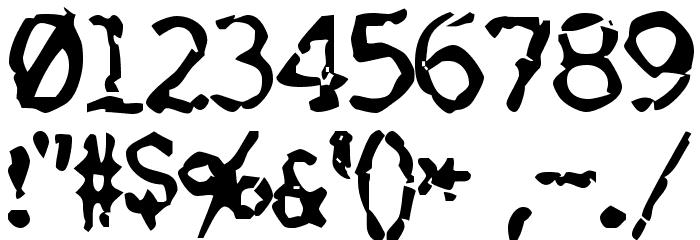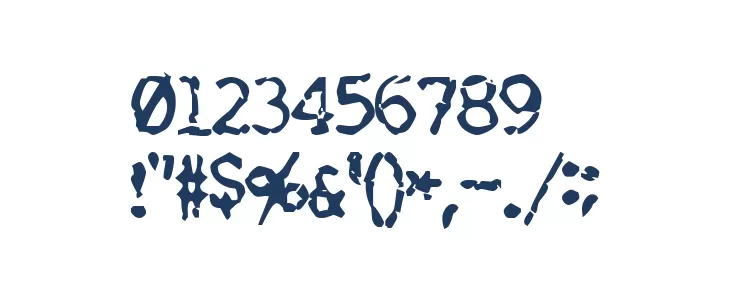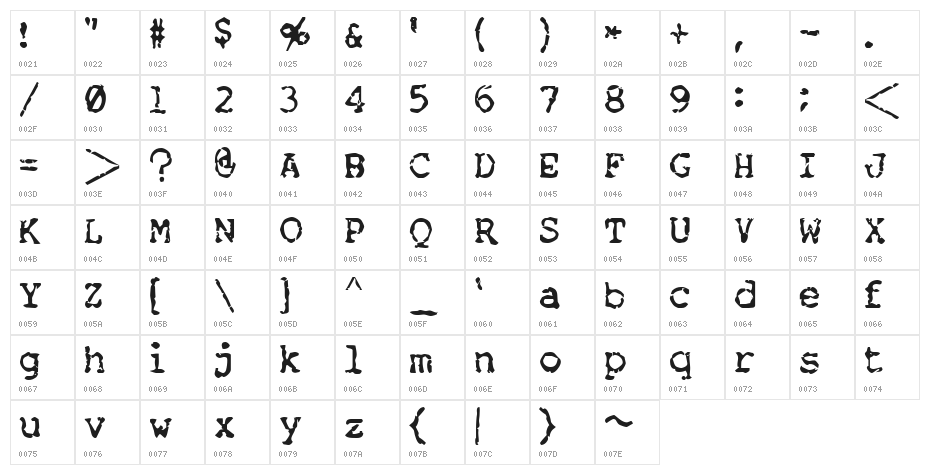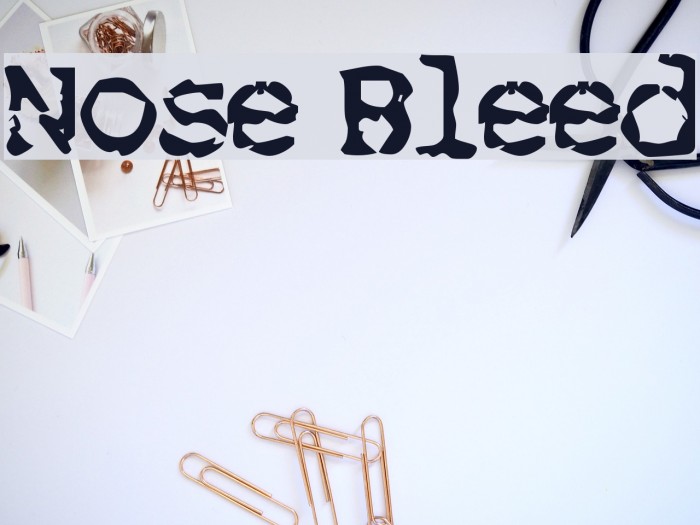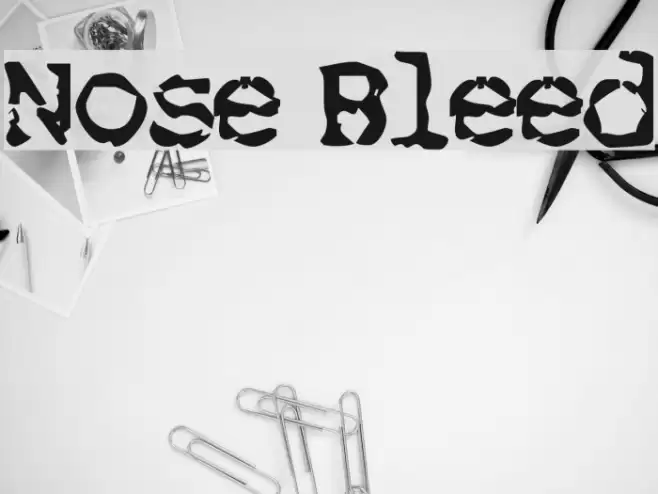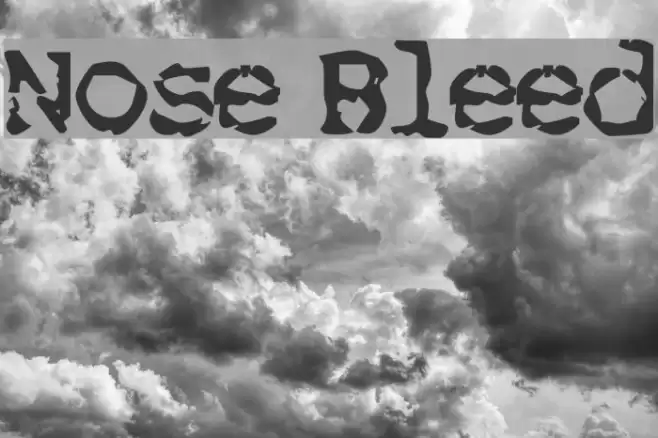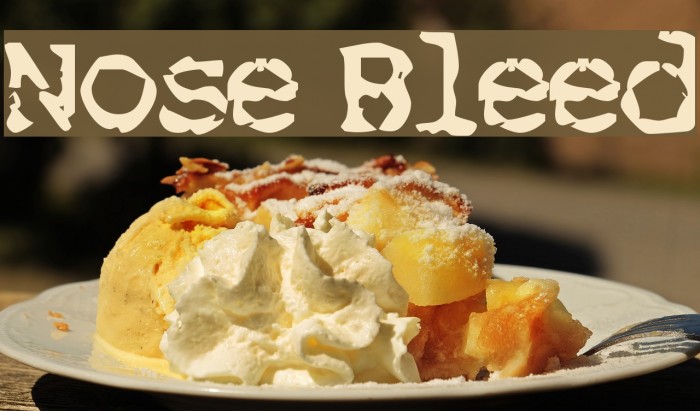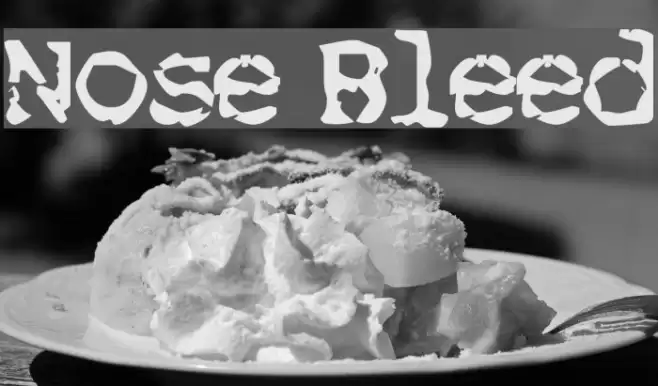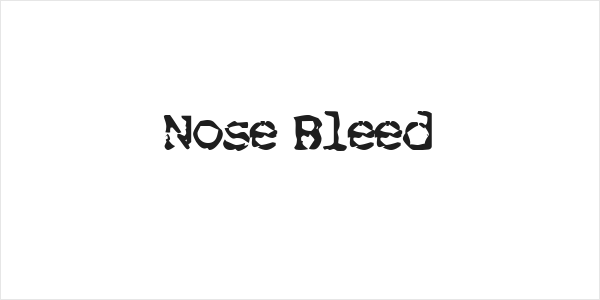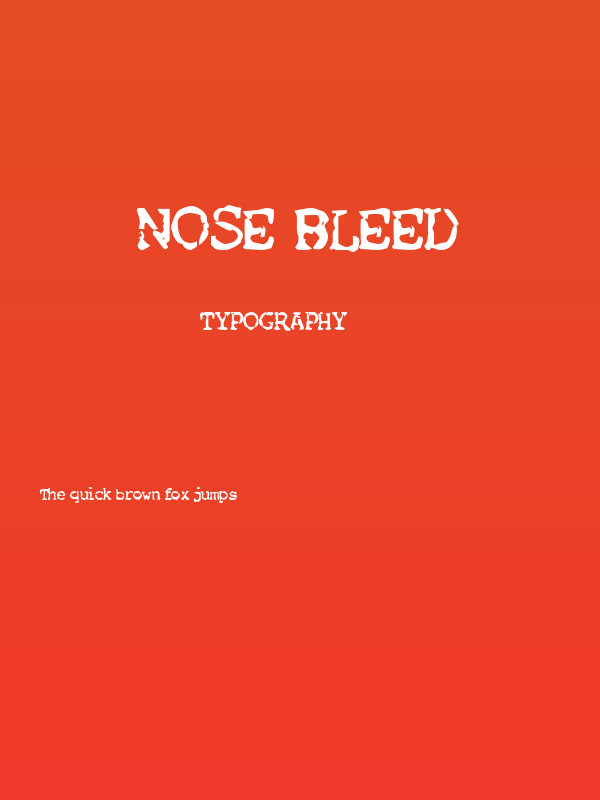
Nose Bleed Font
Nose Bleed Description
This font features a highly distressed and chaotic appearance, with irregular and jagged edges that create a sense of movement and energy. The characters are bold and substantial, with a rough texture that suggests a hand-drawn or painted origin. The uppercase and lowercase letters maintain a consistent style, while the numerals and special characters follow the same rugged aesthetic. This font's unique design makes it stand out, capturing attention with its unconventional and artistic flair.
| Proposed Projects | Ideal for projects requiring a dramatic and artistic touch, such as album covers, posters, or edgy branding materials. |